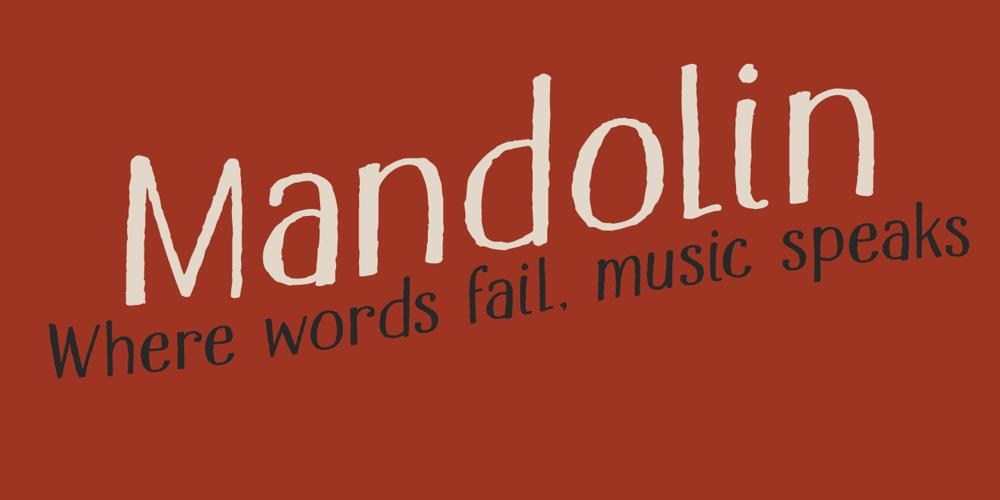
Mandolin Font Family was designed by David Kerkhoff and published by Hanoded. Mandolin contains 1 styles and family package options. Mandolin is a handmade ‘Didone-ish’ font with a bit of a rough edge. Mandolin was created using a wonderful (and expensive) pen I found in Canterbury, England. I am aware that this information isn’t too relevant, but I thought I’d share it with you nonetheless… Mandolin comes with all diacritics.